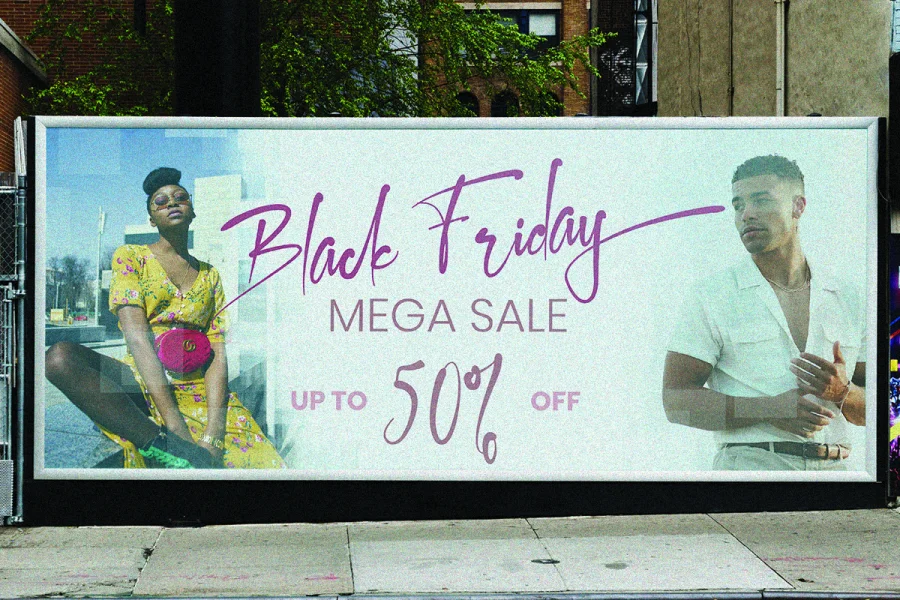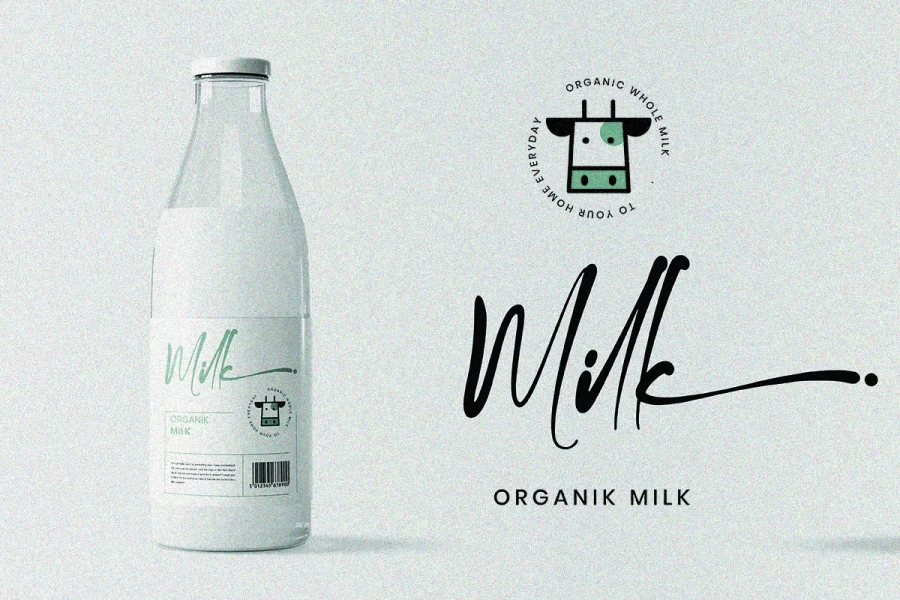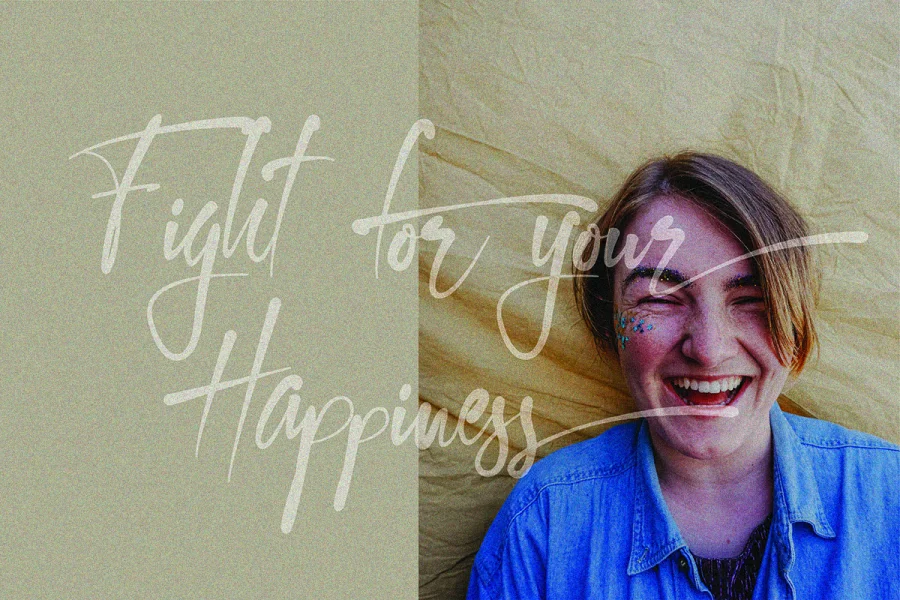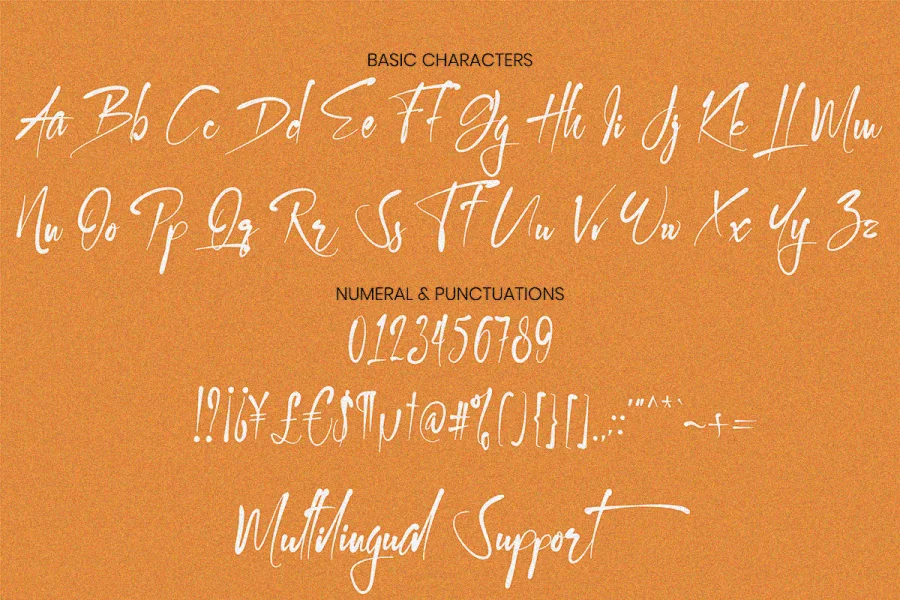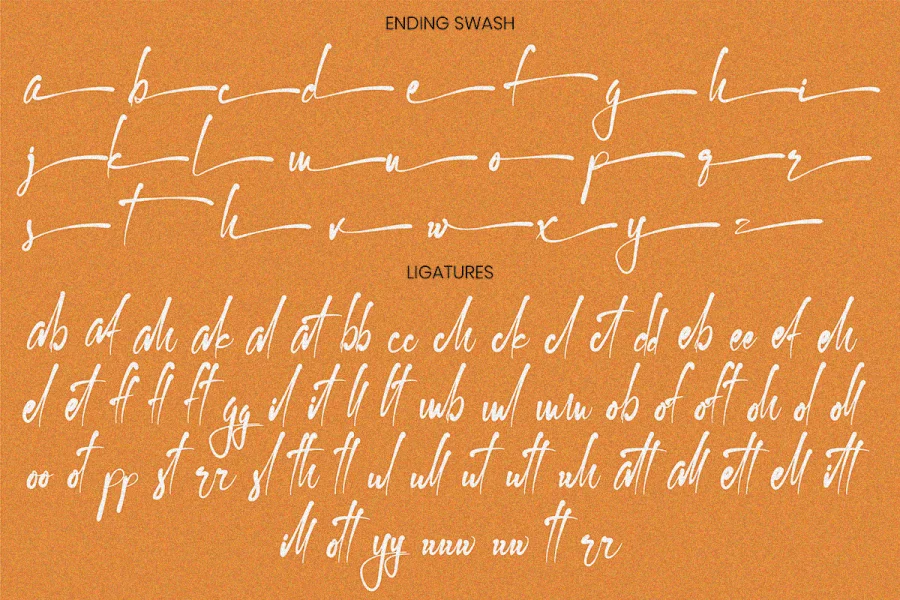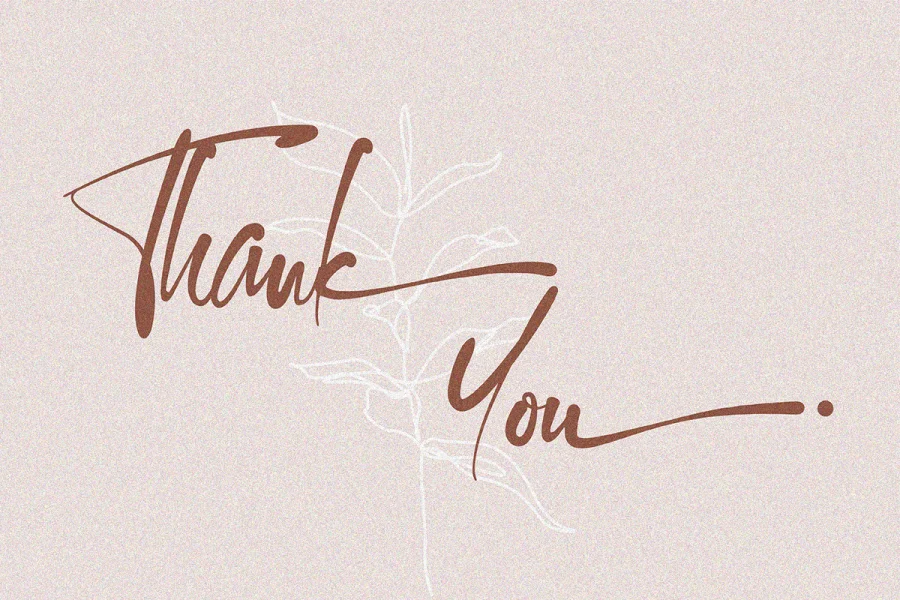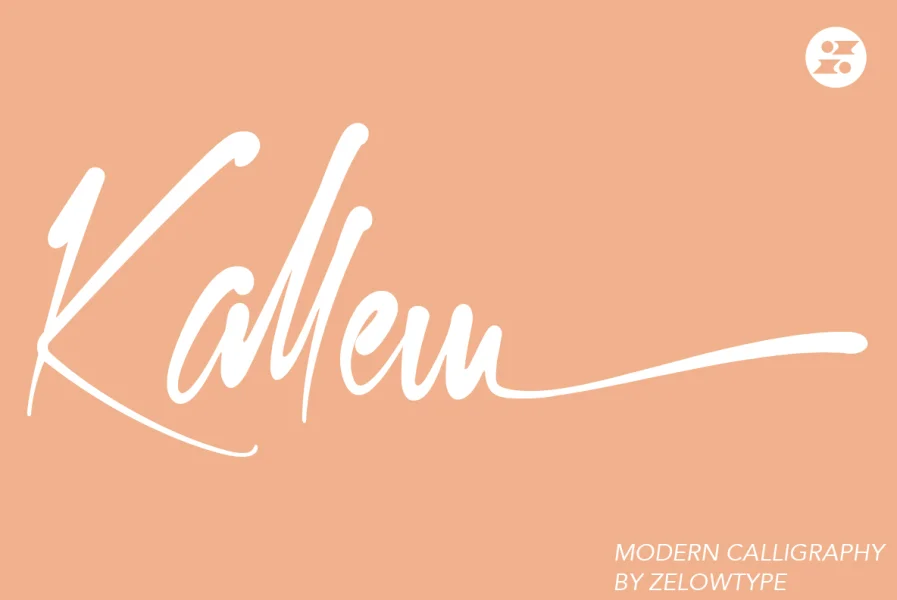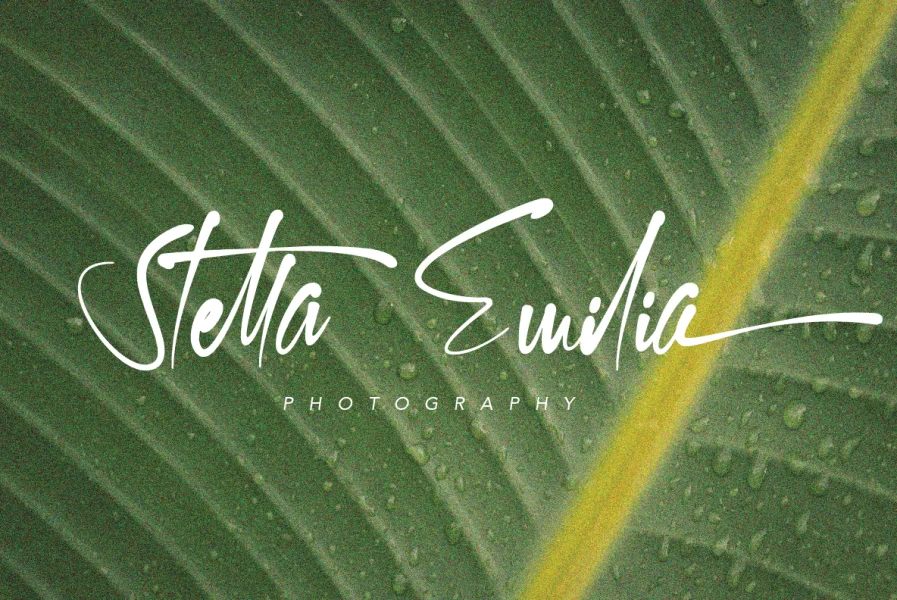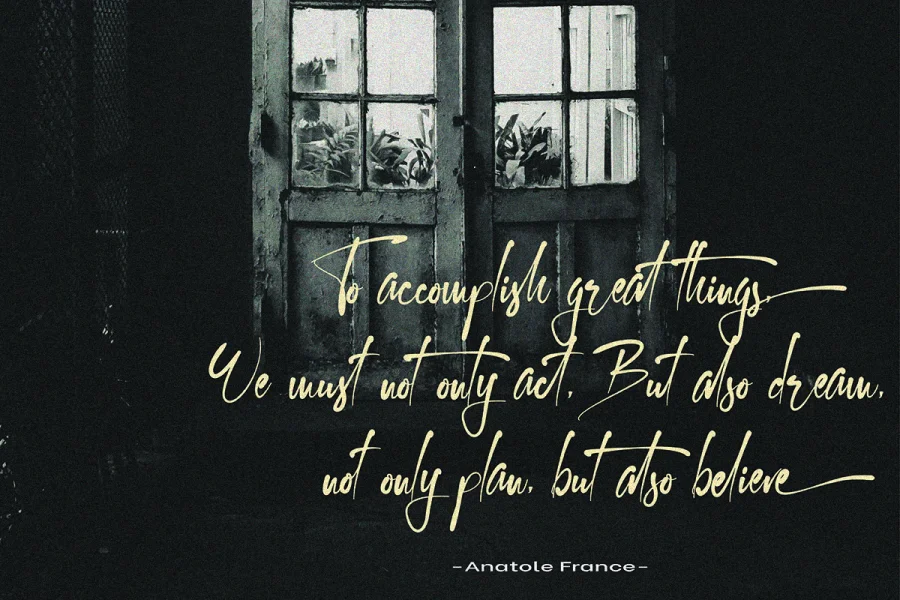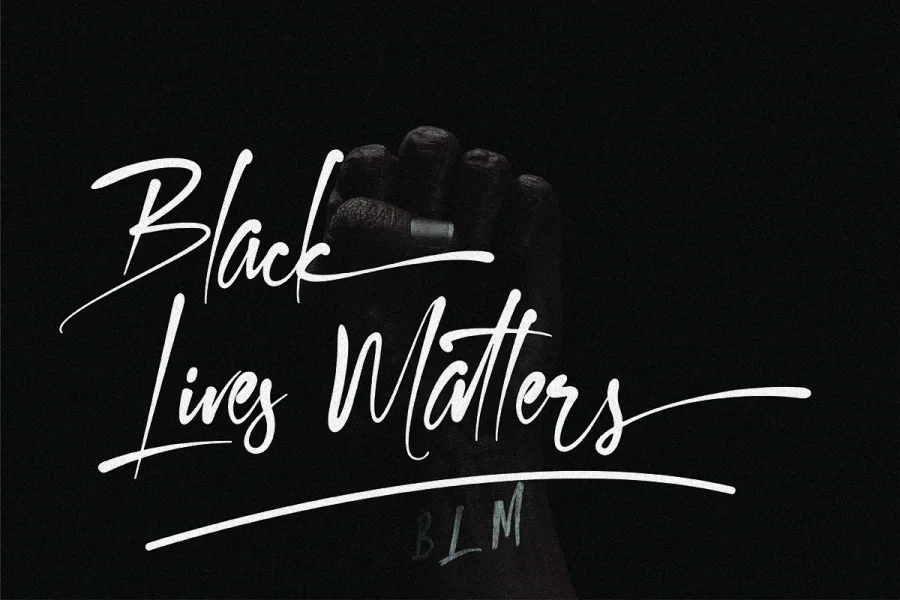
Kallem is a stylish modern Calligraphy font with magical pressure. i hope this font perfect for creating signature logos and watermarks for photography studio or wedding invitation, best for initial or branding logo signature.
Kallem includes full set of gorgeous uppercase and lowercase letters, numerals, a large range of punctuation and 61 ligatures. All lowercase letters include ending swashes, giving realistic hand-lettered style.